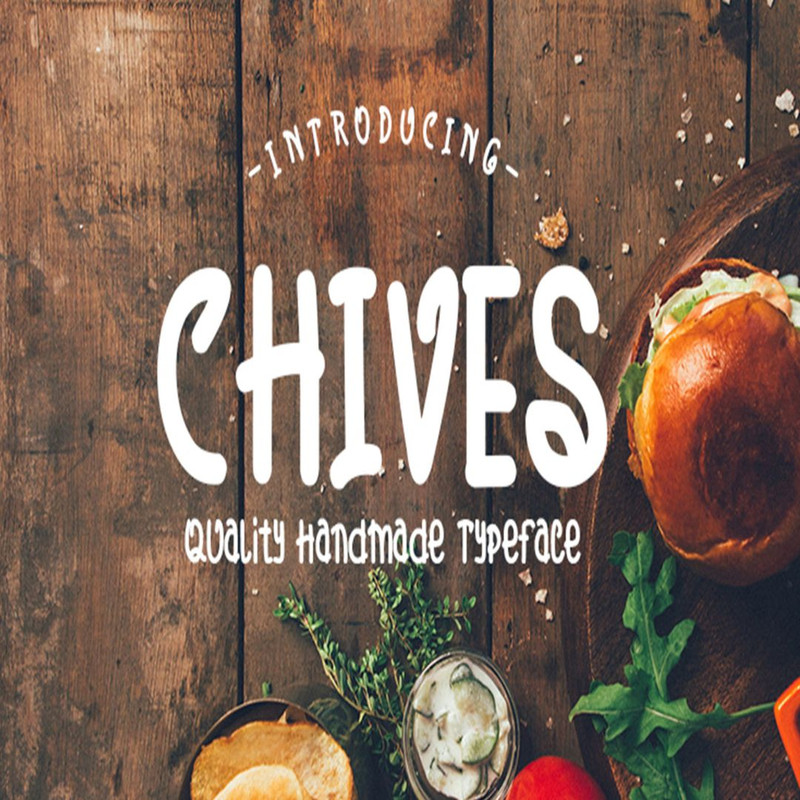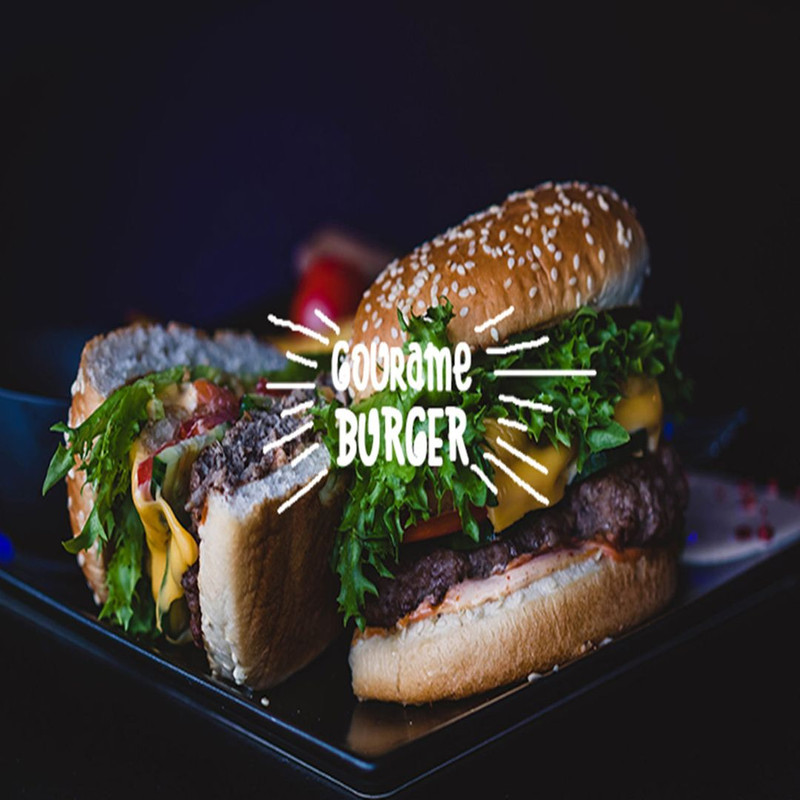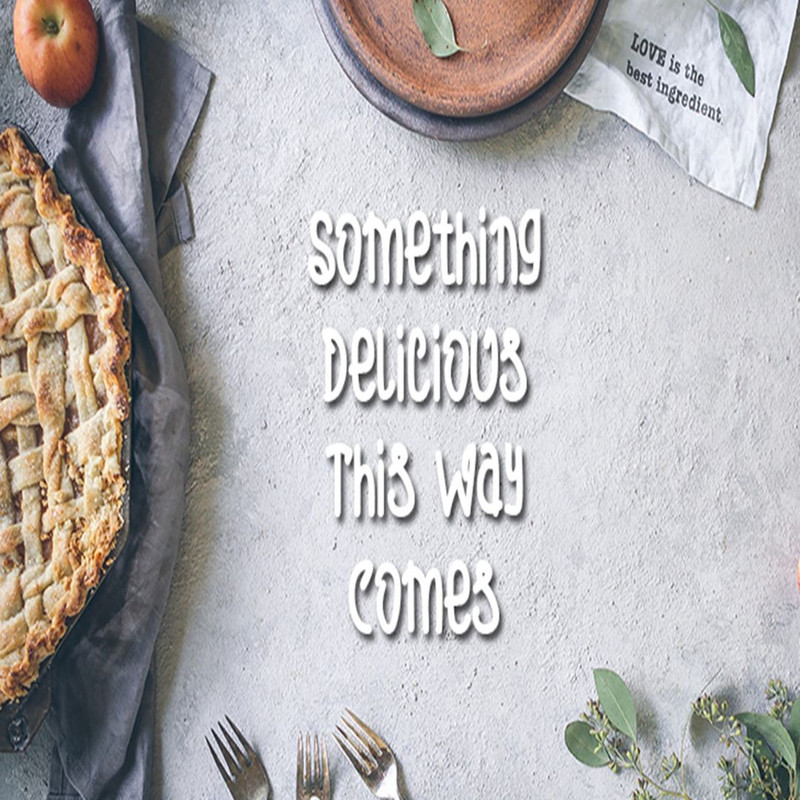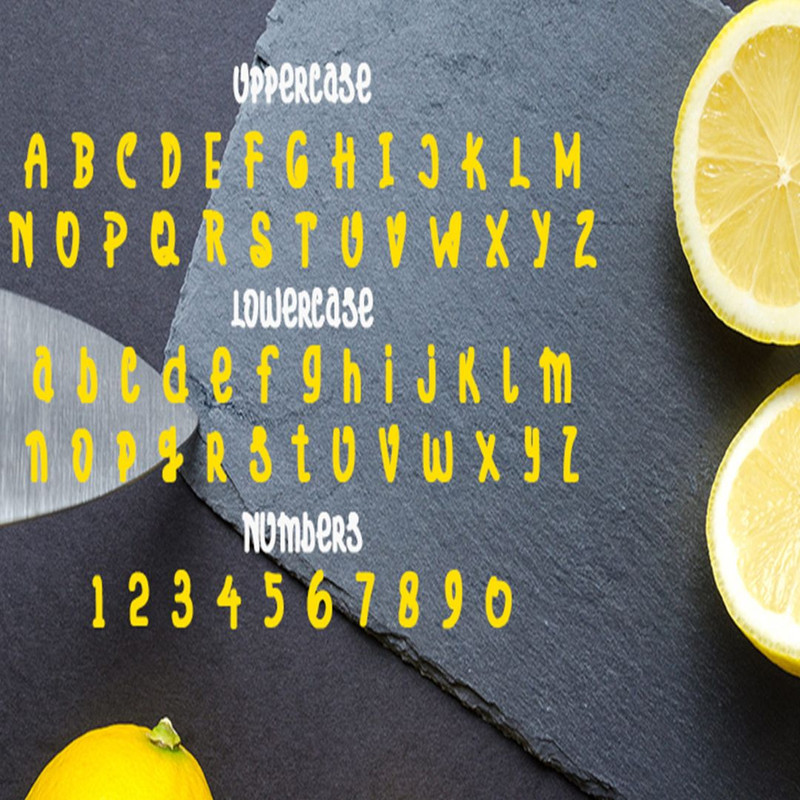
Chives Cute Display Font Trending Fonts - Digital Font
Hello FOOD LOVERS, the Chives is a new typeface for your tasty works! It is a collection of all-caps characters mixed with some lowercase ones. It has a delightfully hand-written feel